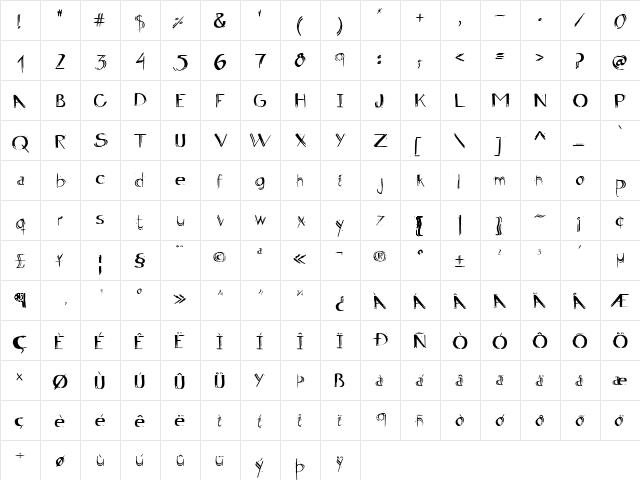
Artmar Regular
Design Context for Artmar Typeface
Artmar is a composed and adaptable typeface that performs quietly and consistently across a wide range of design contexts.